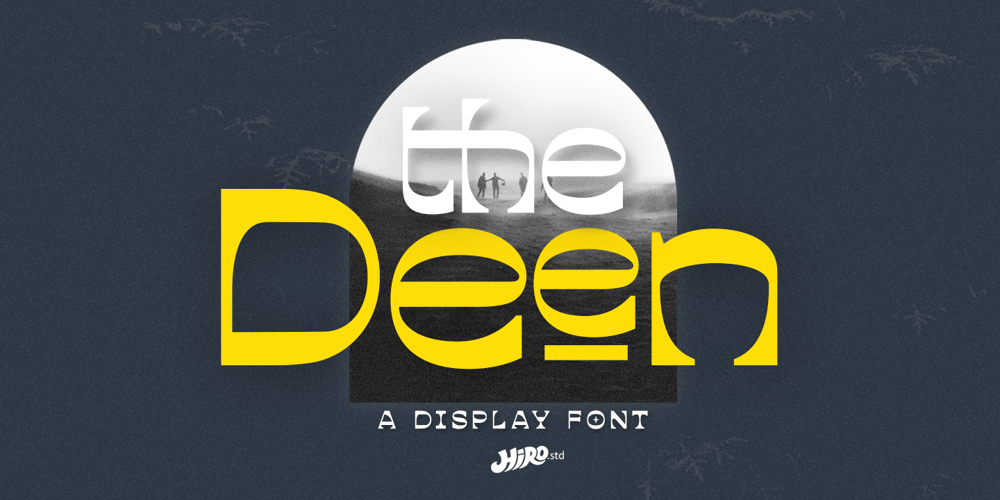
The Deen Font Family was designed by Chairul Ashar and published by HIRO.std. The Deen contains 1 styles and family package options. The Deen is a Display Font.This font describes about stylist, modern retro, modern vintage, and easy to use. The Deen inspired from the modern, retro, vintage and the taste of art in that era.FEATURES- Uppercase and Lowercase letters- Support Opentype Features- Numbering and Punctuations- PUA Encoded Characters- Multilingual Support- Works on PC or Mac- Simple InstallationUSEThe Deen Typeface works great in Logotype, Headline, Social Media, Apparel, Poster, Magazine Titles and wherever you want to be seen.Thanks for purchasing and have fun!HIRO.std